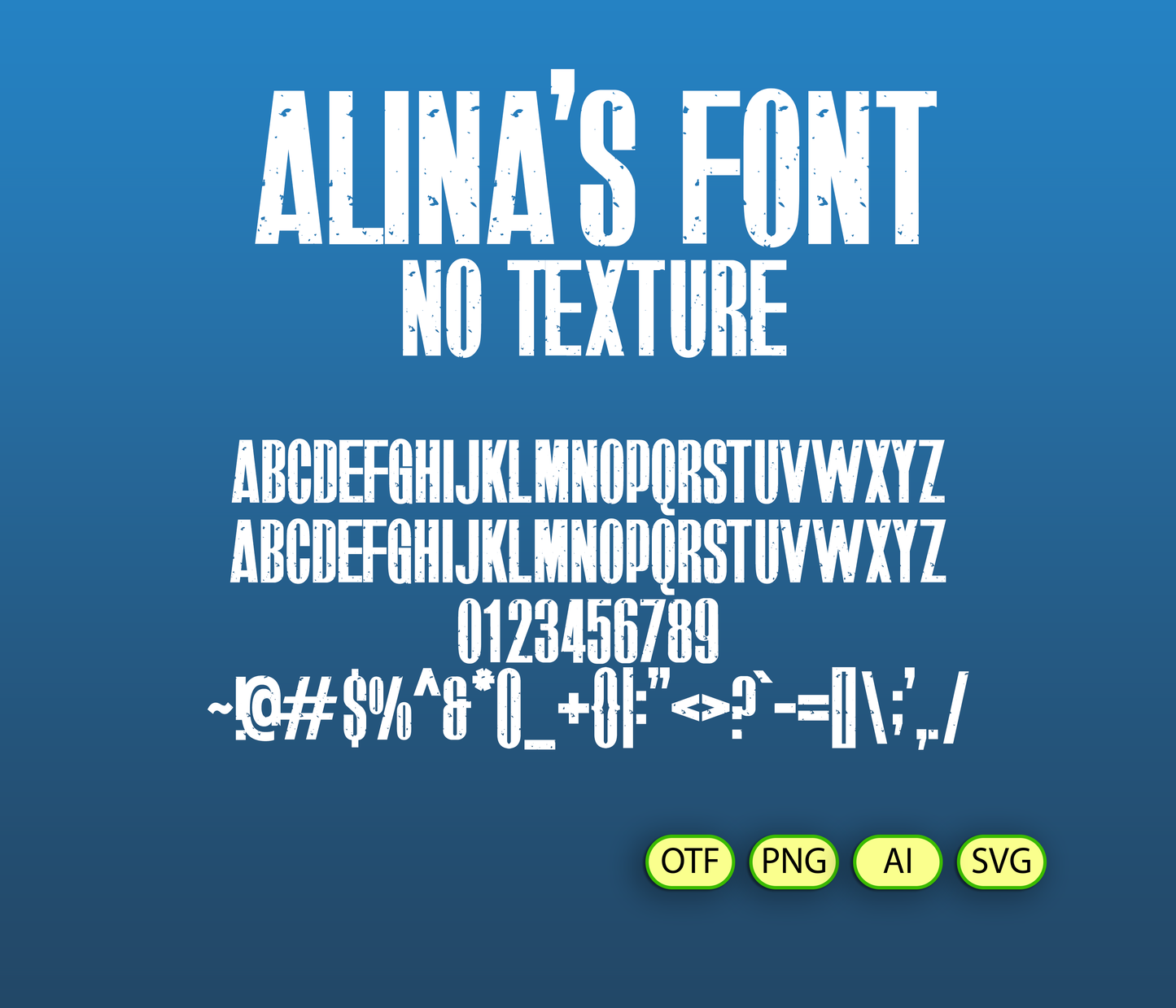
Feudal Japan Swordsman Font
Step into the gripping world of historical vengeance with our Feudal Japan Swordsman Font, capturing the essence of blade mastery and traditional honor codes. Perfect for animation enthusiasts, themed event organizers, content creators, and creative professionals, this font brings the bold, resolute spirit of martial journey narratives to your projects. Create eye-catching invitations, merchandise, or digital content with the dramatic energy of epic sword-fighting sagas.
Our Feudal Japan Swordsman Font features dramatic, stylized letterforms with weathered textures reflecting the world of ancient warriors and traditional Eastern landscapes.